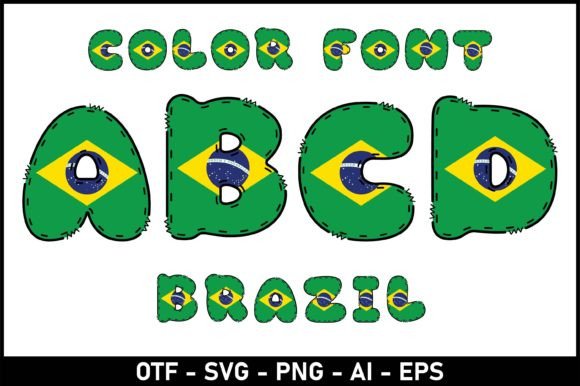
The Brazil Font: Vibrant Style for Creative Projects
There’s a certain energy that comes with Brazilian culture—the music, the colors, the sheer joy of expression. The Brazil typeface captures a slice of that spirit. It’s not just a collection of letters; it’s a display font with a personality that can instantly inject warmth and a handcrafted feel into your work. If you’re a designer, marketer, or content creator looking for a premium font that feels both artistic and approachable, understanding how to wield the Brazil typeface is a valuable skill. This article breaks down its visual character, explores its best applications, and offers practical advice for integrating it into your projects.
Visual Character: More Than Just a Typeface
At its core, Brazil is a script font with a distinctly modern, flowing aesthetic. It often leans into a handwritten font style, but one that’s been refined for clarity and impact. Think of it as a cousin to more casual handwritten fonts, but with a confident, artistic flair. The letterforms are characterized by fluid, connected strokes that mimic the natural motion of a brush or pen. You’ll notice a slight slant and varying thickness, which gives it a dynamic, human touch. The overall appeal is playful, creative, and full of life. It avoids the stiffness of a formal serif font and the neutrality of a standard sans serif font, making it a powerful tool for projects that need to convey emotion and authenticity.
This creative font shines in contexts where you want to evoke a sense of joy, creativity, or artisanal quality. Its personality is inherently friendly and engaging, making it an excellent choice for designs that aim to connect on an emotional level. Unlike overly ornate scripts that can be hard to read, a well-designed version of Brazil prioritizes legibility while maintaining its artistic integrity. This balance is what makes it a versatile design asset for both digital and print mediums.
Strategic Applications: Where Brazil Truly Shines
Knowing a font’s personality is one thing; knowing where to deploy it is another. The Brazil typeface is a specialist. It’s not meant for body text in a novel or a dense technical report. Its strength lies in targeted, high-impact applications where visual hierarchy and brand perception are key.
For brand identity and logo design, Brazil can be a game-changer for brands in the lifestyle, beauty, food, or creative service industries. Imagine it on a coffee shop logo, a boutique clothing tag, or the branding for a handmade cosmetics line. It instantly communicates a human touch and a story behind the brand. In editorial design, it works beautifully for article headlines, pull quotes, or chapter titles in a cookbook, adding a layer of visual interest that draws the reader in. For packaging design, particularly for artisanal products, craft goods, or anything targeting a family audience, this font can make a product stand out on the shelf with its approachable charm.
The digital realm is another natural home. As a web design accent, it’s perfect for hero section headlines, call-to-action buttons, or banner text on a creative portfolio site. For social media graphics, it’s a powerhouse. Use it for Instagram story titles, Pinterest pin text, or YouTube thumbnail headlines to create scroll-stopping content that feels personal and vibrant. It’s also a staple in designs for children’s books, posters, invitations, and greeting cards—anywhere a whimsical, colorful, and easy-to-read feel is desired to create an engaging experience.
Practical Guidance for Using the Brazil Font
Integrating a distinctive font like Brazil into your workflow requires a thoughtful approach. Here’s how to do it effectively.
Evaluate the Project Fit: First, ask if the font’s personality aligns with your project’s goals. Is the tone meant to be joyful, artistic, and human? If you’re working on a corporate legal document, Brazil is the wrong tool. If you’re designing a logo for a dance studio or a social media ad for a summer festival, it could be perfect. Consider your audience—will they respond to this playful energy?
Master the Font Pairing: A display font like Brazil needs a stable partner. The key to a strong font pairing is contrast and balance. Pair it with a clean, readable sans serif font for body text or supporting information. A simple, geometric sans serif can ground the fluidity of Brazil, ensuring your overall design remains professional and legible. Avoid pairing it with another expressive script font or a very decorative serif font, as this can create visual chaos.
Test for Readability: While designed for clarity, always test your chosen Brazil typeface at the size it will be used. Is it clear in a small social media icon? Is it impactful as a large poster headline? Pay special attention to the legibility of individual letters and how words flow together, especially in longer phrases. This is crucial for maintaining a professional standard.